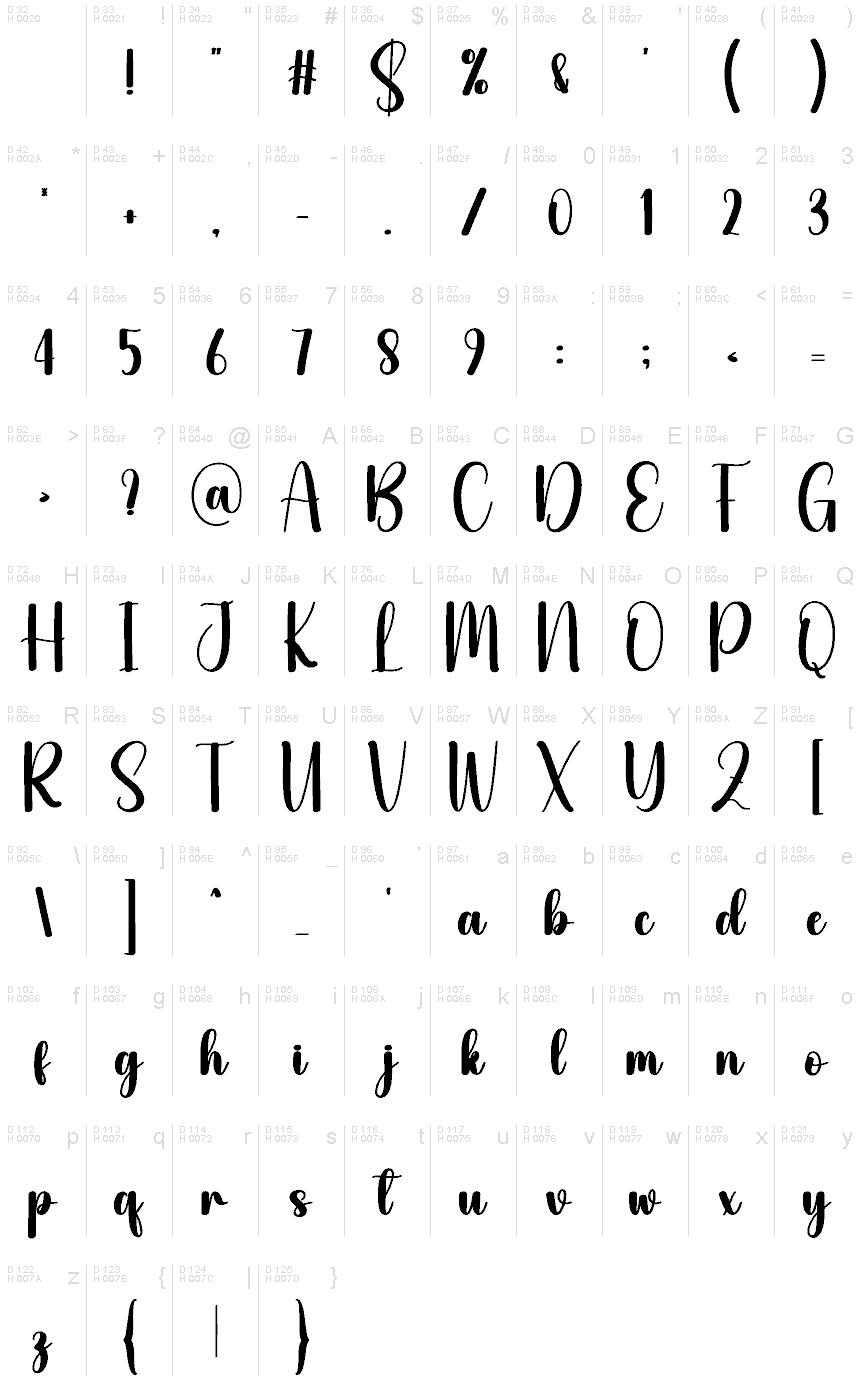
Thepumkin
Thepumkin font by Scratchones explores a new synonym of authenticity with all the spontaneity and freedom that comes from handwritten styles. This free handwritten font exhibits an expressive nature made possible through its natural rhythm, smooth flow, and elegant strokes.
Enjoy the use of Thepumkin font in book covers, lullaby songs covers, birthday cards, magazine articles for design-related content like interior design or fashion. Manipulate it as well as on websites dealing with blogs and editorial writings.